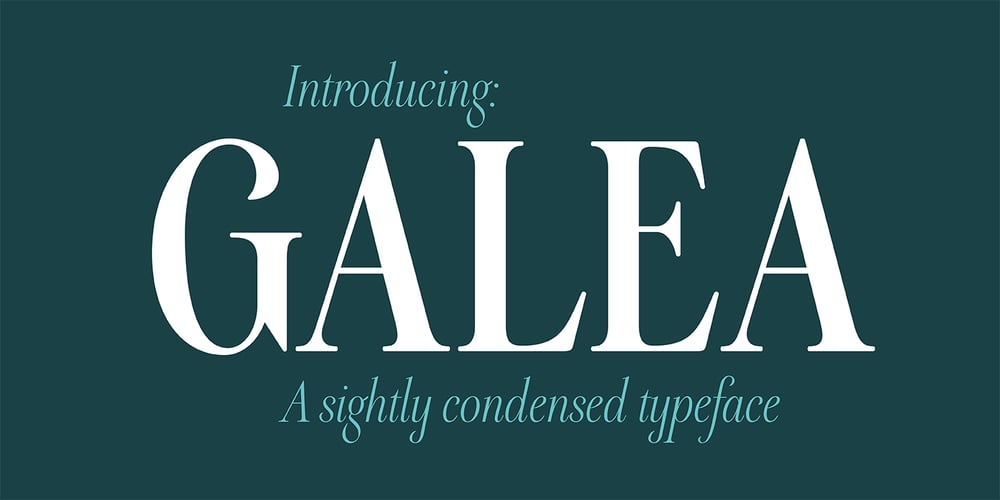
Galea Display Font Family was designed by Isabel Urbina-Peña and published by Letra Type. Galea Display contains 4 styles and family package options. Galea is a slightly condensed serif typeface with long extenders. Its elongated proportions and graceful terminals seek to bring femininity and elegance to any layout. It is a display face that works well at large sizes in editorial contexts as a headline, titling or introduction to a text. Galea was designed by Isabel Urbina Peña while at Cooper Union’s Type@Cooper Extended Program, 2012 and released on May, 2014. Galea obtained an Honorable Mention from the Fine Press Book Association in the Text Family Category, 2013. Also, it is featured in the book “Playing with Type: 50 Experiments” by Lara McCormick, Rockport Press, on Parenthesis Magazine, Autumn 2013 on Behance’s Typography Served and will appear on “Typography Magazine”, Japan (Nov 2014).